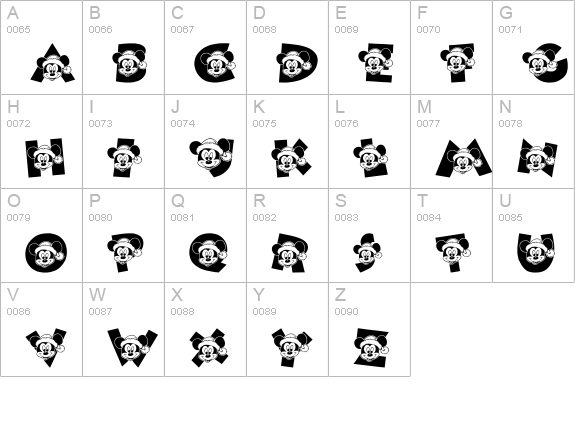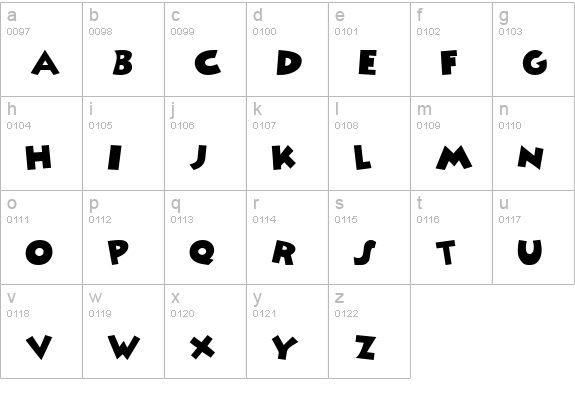
Mickey's Merry Christmas Font Details
Mickey's Merry Christmas font is a whimsical and festive typeface that captures the joy and magic of the holiday season. With its playful curves and cheerful design, this font is perfect for adding a touch of Christmas spirit to your projects. Whether you're creating greeting cards, party invitations, or holiday-themed designs, Mickey's Merry Christmas font is sure to bring a smile to your face. Best of all, this delightful font is available for free at FontsMarket.com! Simply download it and start spreading Christmas cheer with your creative projects. With Mickey's Merry Christmas font, you can add a touch of Disney magic to your designs and make this holiday season truly special. Get your copy today and let the festive fun begin!